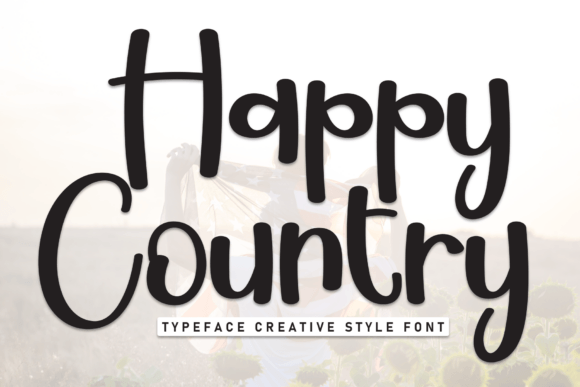
Discover the Joy of Handcrafted Design
Have you ever been browsing through a craft store, surrounded by colorful papers, ribbons, and trinkets, and suddenly felt a wave of inspiration wash over you? That’s exactly what happens when you meet the Happy Country Font – a charming display font that will transport you to a world of sweetness and friendly allure.
Designed with love and care, this handcrafted font is perfect for adding a touch of whimsy to your designs. Whether you’re crafting wedding invitations, expressive cards, or any other project that needs a dash of fun, the Happy Country Font is your new best friend. As a designer, you know that the right font can make all the difference in elevating your work – and this font is sure to bring a smile to your clients’ faces.
Key Features of Happy Country Font
- Font Family: Happy Country Font is a unique, hand-drawn font designed to evoke a sense of happiness and warmth. It is available in multiple font styles, including Happy Country Regular, Happy Country Italic, Happy Country Bold, and Happy Country Bold Italic.
- Unique Characteristics: The Happy Country Font features a distinctive, hand-drawn style with subtle imperfections that give it a unique and charming character. It is designed to add a touch of warmth and personality to any design.
- Language Support: The font supports a wide range of languages, including Latin, Cyrillic, and Greek alphabets, making it suitable for use in multilingual applications.
Designer Review: Happy Country Font
Overall, I think the Happy Country Font has some great qualities, but it also has some limitations. Let’s dive in!
- Playful and Whimsical Feel: The font has a unique, hand-drawn quality that gives it a playful and whimsical feel, making it perfect for projects that need a touch of fun and personality.
- Good Legibility: Despite its playful nature, the font is still quite legible, making it suitable for body text and longer passages.
- Customizable: The font comes in a range of weights and styles, allowing designers to customize it to fit their specific needs.
- Limited Font Variations: While the font comes in multiple weights and styles, it still feels a bit limited in terms of overall font variations. Some designers may find it restrictive.
- Not Suitable for Formal Projects: Due to its playful nature, the font may not be suitable for formal or professional projects, such as business reports or academic papers.
- May Not Translate Well: The font’s hand-drawn quality may not translate well to certain screen resolutions or print formats, potentially resulting in pixelation or loss of detail.
In conclusion, the Happy Country Font is a fun and versatile font that works well for projects that need a touch of personality. However, it may not be suitable for all types of projects, and its limitations should be considered carefully before use.
Tips for Getting the Most Out of the Happy Country Font
For the best results, use the Happy Country Font in contexts where a playful, whimsical feel is desired, such as in children’s book illustrations or advertising campaigns targeting families.
The Happy Country Font is commonly used in:
- Children’s book covers and illustrations
- Advertising campaigns targeting families
- Party and event signage